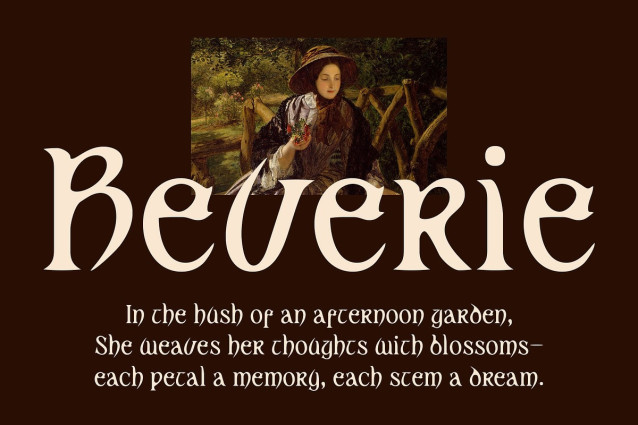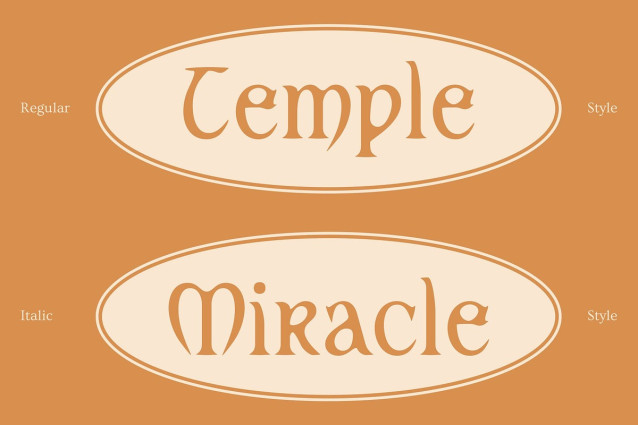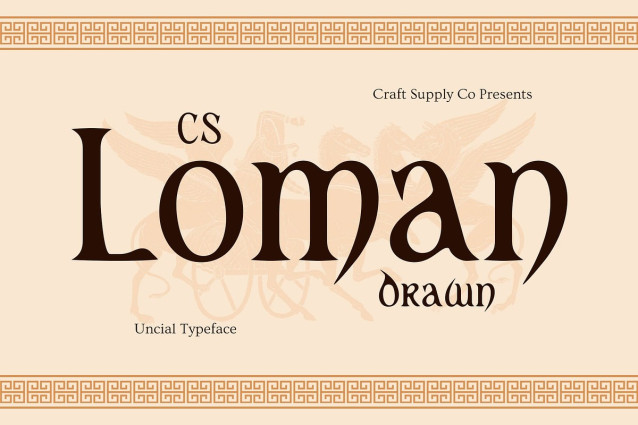
CS Loman Drawn Font
CS Loman Drawn Font is a serif display font that uniquely combines a modern-classic aesthetic with the soft, rounded elegance of uncial letterforms—a style rooted in ancient manuscripts. This fusion results in a design that feels both timeless and sophisticated, ideal for evoking a sense of literary charm, cultural depth, and mystical refinement.
A Gentle Flow of Tradition Each character features graceful curves and subtle flourishes, reflecting the heritage of early calligraphic forms while embracing a clean, modern serif structure. The drawn texture adds depth and irregularity, creating a tactile, handmade quality that softens the overall appearance. It’s this balance between historical structure and artistic imperfection that gives the font its unique voice.
Drawn Texture for a Human Touch The hand-drawn effect enhances the font’s personality, adding warmth and organic irregularity. It gives the design an artistic, crafted presence—perfect for expressing uniqueness and depth.
Perfect for Evocative Storytelling Ideal for projects that seek to blend narrative, emotion, and authenticity, this classic font works beautifully in fantasy genres, editorial designs, ancient-inspired branding, or literary covers. Whether used in titles, logos, packaging, or book design, it conveys a sense of heritage, craftsmanship, and expressive creativity—inviting viewers into a world where past and present meet.